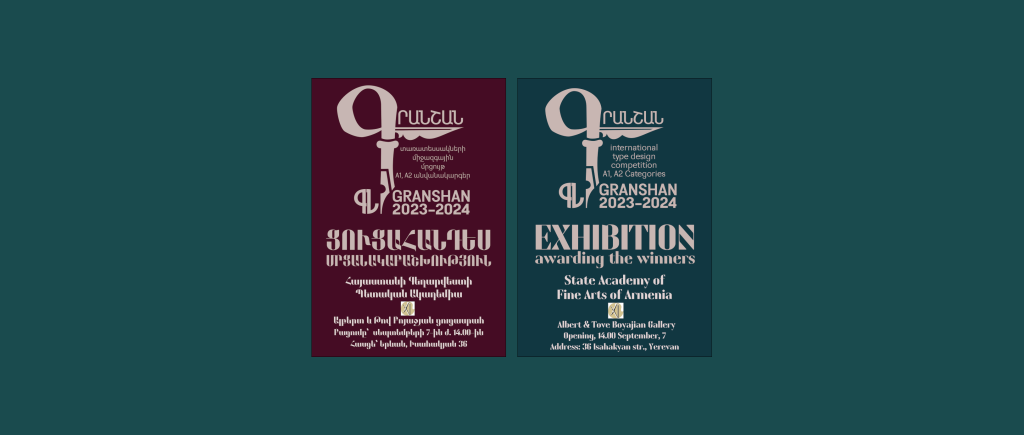
Many things are coming together in Yerevan this week: for the first time since 2009, the Typographische Gesellschaft München (tgm) is once again organising a study trip to Armenia – this time in cooperation with the GRANSHAN Foundation and the newsletter eight days a week.
It was obvious to plan several events in this context. We would like to highlight one particularly outstanding event here: an exhibition of the winning works from the 13th GRANSHAN Type Design Competition. Two posters will be shown for each winning work, one a free work using the winning typeface and the other a structured presentation of the special features of the respective typeface. In addition, Edik Ghabuzyan’s life’s work will be shown in another room: a relevant number of the more than 300 typefaces he has designed can be admired.
The exhibition will open on Saturday 7 September – together with the award ceremony for the winning works in the Armenian Script Group. Edik Ghabuzyan’s life’s work will also be honoured with the GRANSHAN Lifetime Honor Medal, which will be awarded for the first time on this occasion.
GRANSHAN Lifetime Honor Medal for Edik Ghabuzyan
In the exhibition you will find the two typefaces from Edik Ghabuzyan, that are a part of his recognition with GRANSHAN Honor Medal. Here is a short description:
GHEA Apricot is a versatile typeface, offering support for Latin, Armenian, and Cyrillic. Characterized in Armenian by its distinctive double-sided serifs, this family includes 7 upright weights and their corresponding italics. The range spans from Regular to Bold for body text, while Extra Bold and Black—with matching italics—are ideal for headings, titles, and other prominent typographic needs. While GHEA Apricot is primarily designed as a text typeface, its elegant traits allow it to perform well at larger sizes, making it equally suitable for display purposes. Like GHEA Fortune, it harmoniously combines the three scripts, preserving the unique typographic nuances of each script while ensuring a pleasent visual flow across the page. The typeface is enriched with a variety of delicate ligatures that not only optimize space but also enhance the overall composition with a touch of sophistication.
GHEA Fortune is an expressive display font that comes in a heavy style and with high contrast. It supports a broad range of Latin-based languages and Armenian, Cyrillic, with Bulgarian and Ukrainian alternates. In addition, the font incorporates special symbols for mathematical and monetary notation – such as the dram, ruble, hryvnia and, bitcoin. GHEA Fortune is designed with numerous ligatures for both Latin and Armenian, and facilitates the effortless composition of complex mathematical formulas. The harmonious integration of the three scripts ensures that each preserves its unique typographic characteristics while complementing one another seamlessly. The font’s true power shines in larger formats, where its allure becomes even more pronounced. Whether for bold posters or presentations featuring intricate mathematical expressions, GHEA Fortune makes a striking impression.